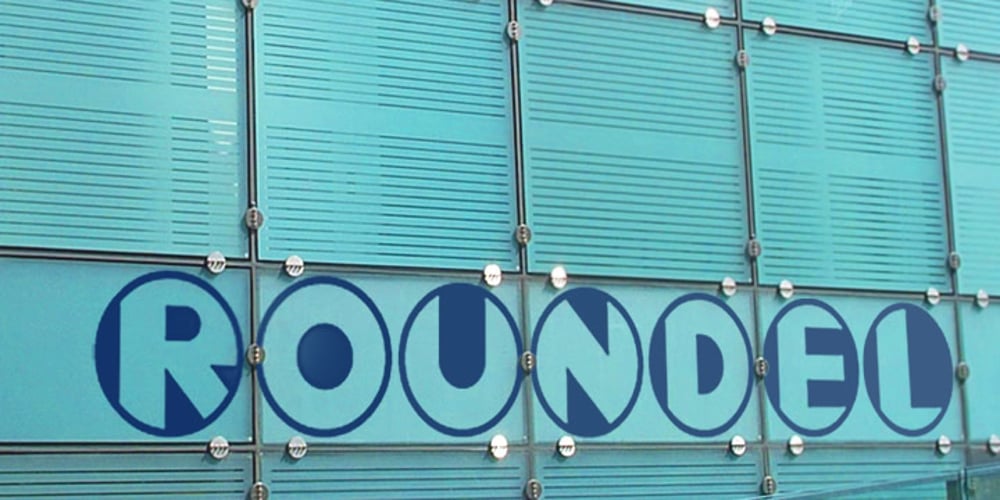
Roundel Font Family was designed by published by K-Type. Roundel contains 2 styles and family package options. Roundel is a paradoxical, modern heraldic typeface. It is a display face of simple, angular and curved shapes, with each main glyph contained within a circle.